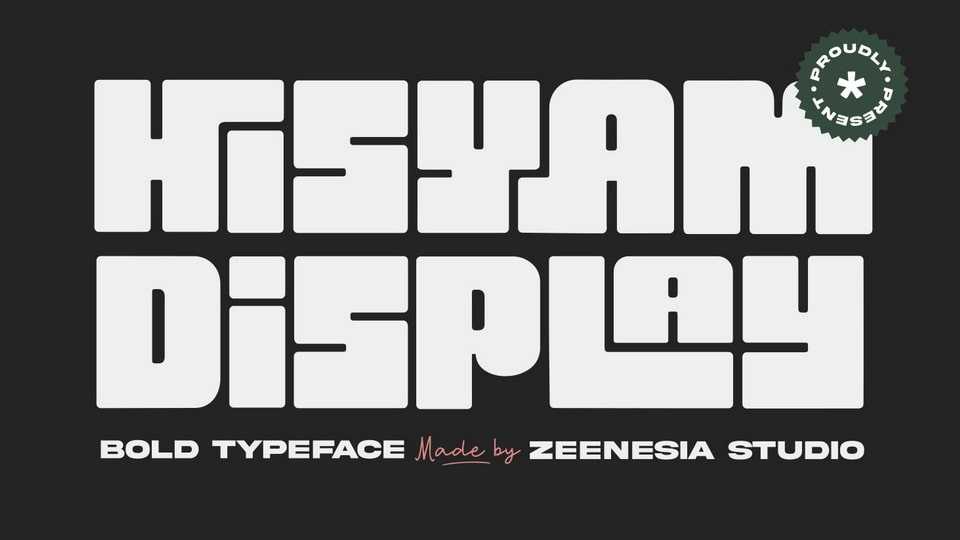
Download Hisyam font, a bold display typeface with strong character and soft features. Hisyam is a modern and classic font with a clear and impact look.
Designer: Zeenesia Studio